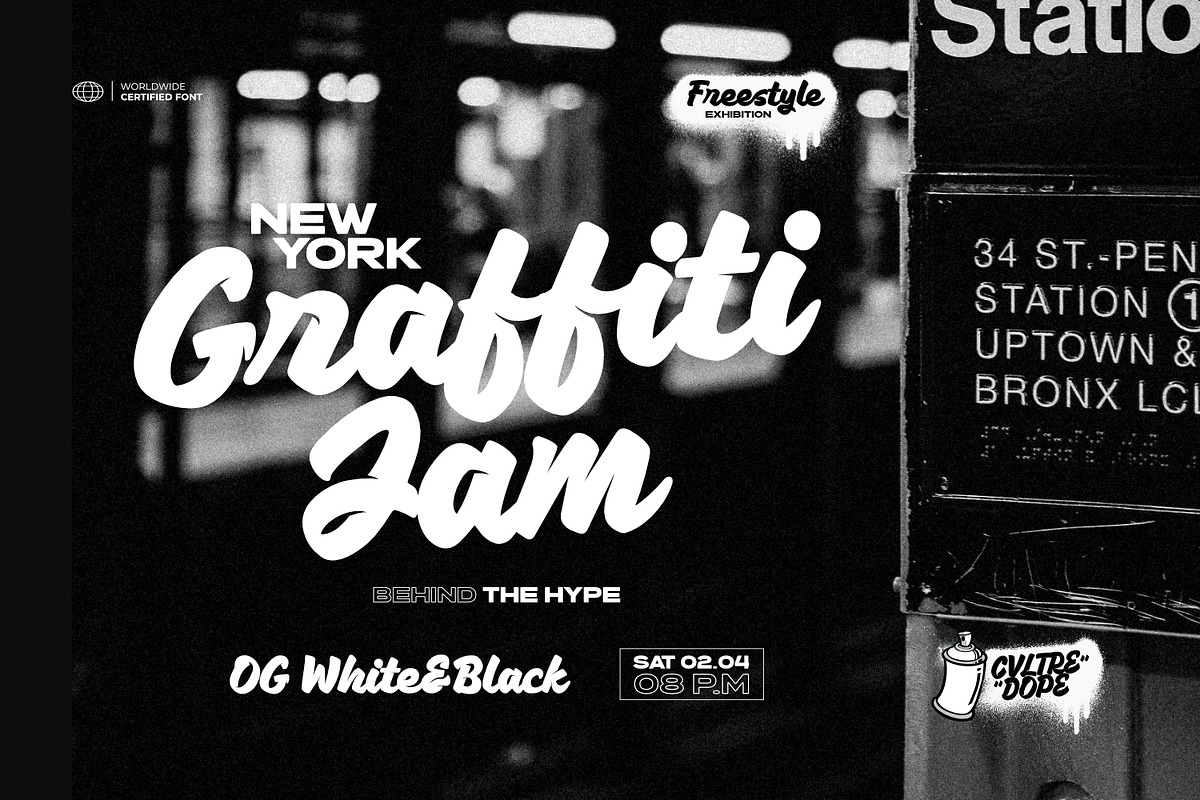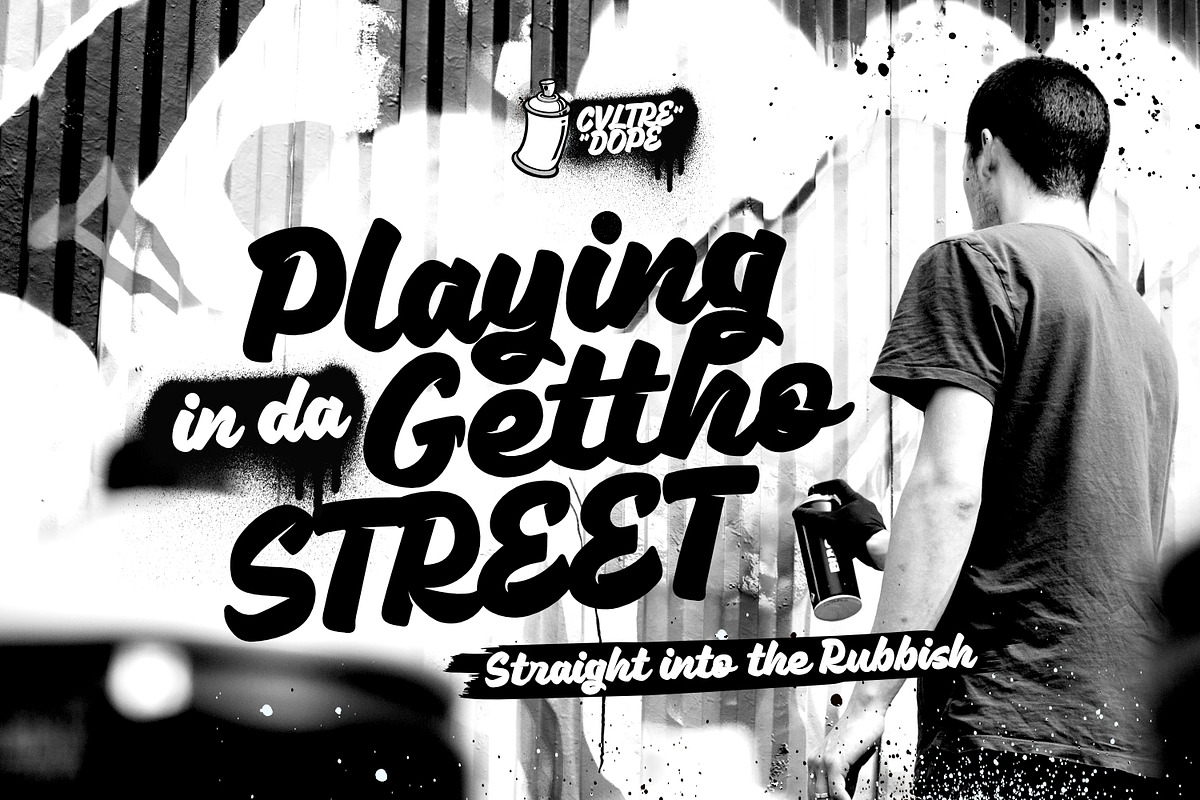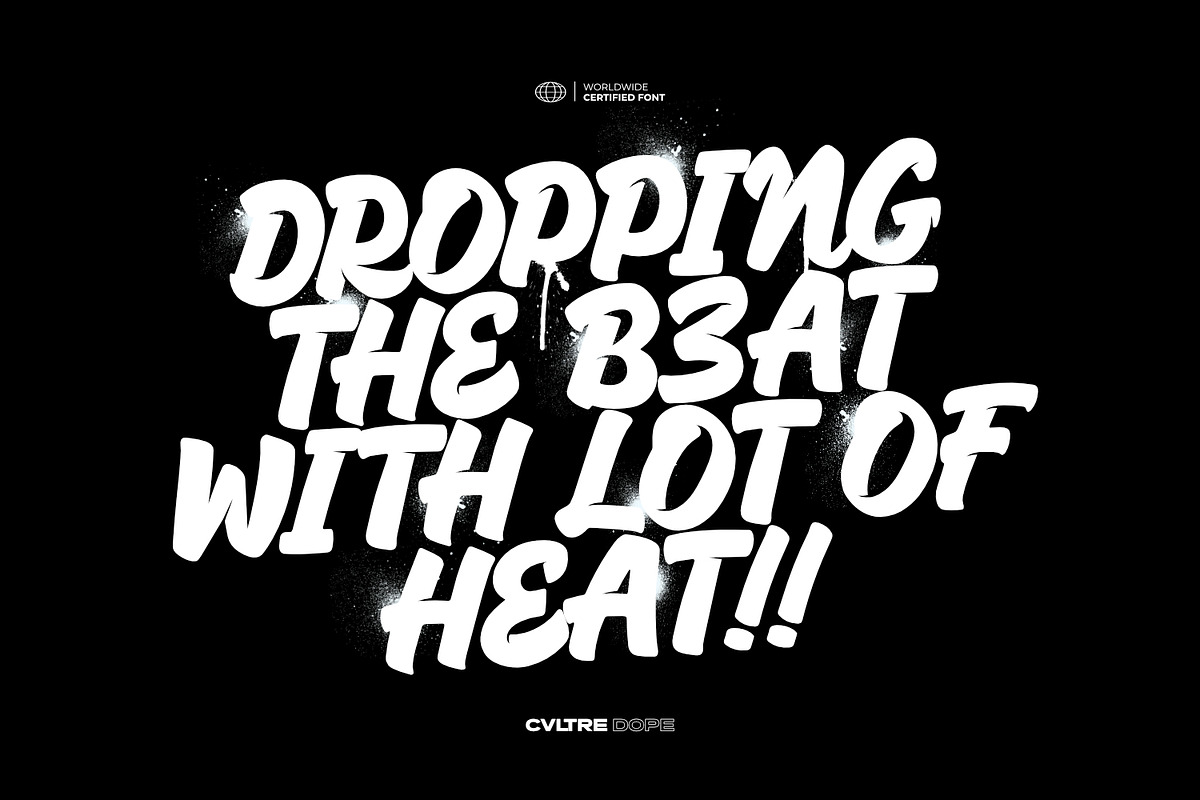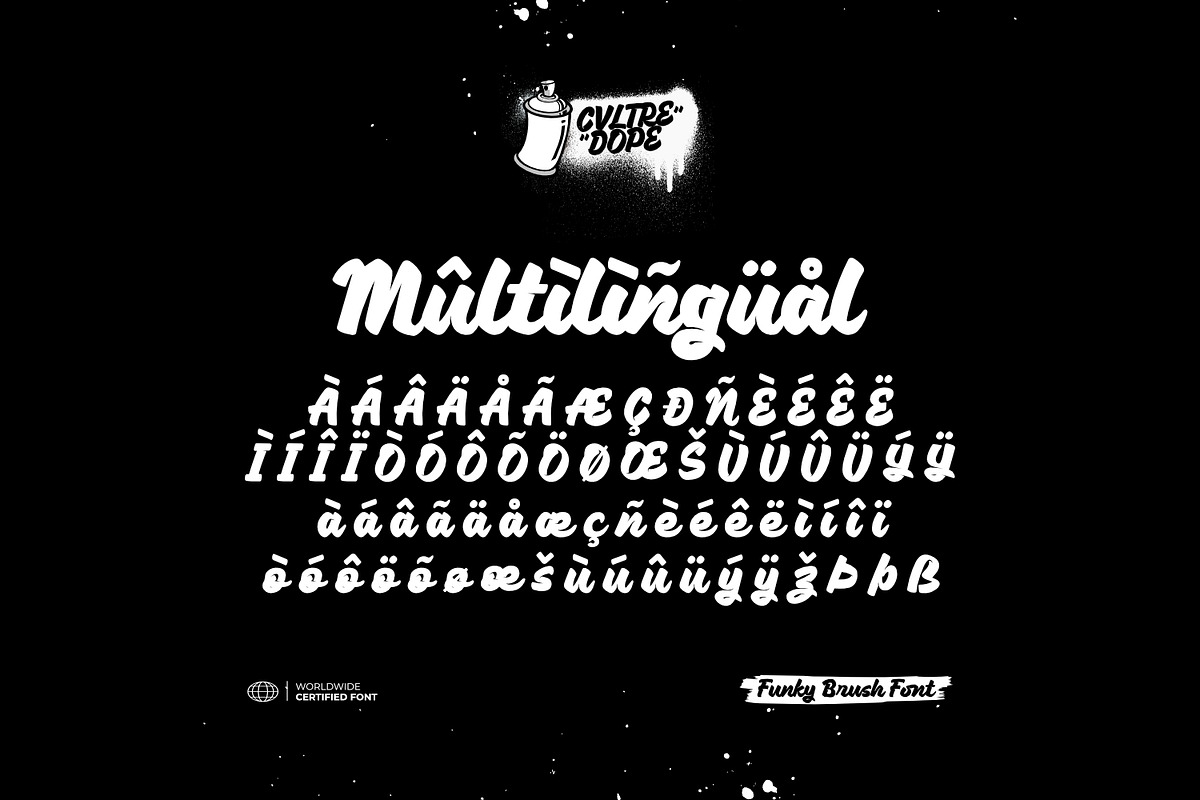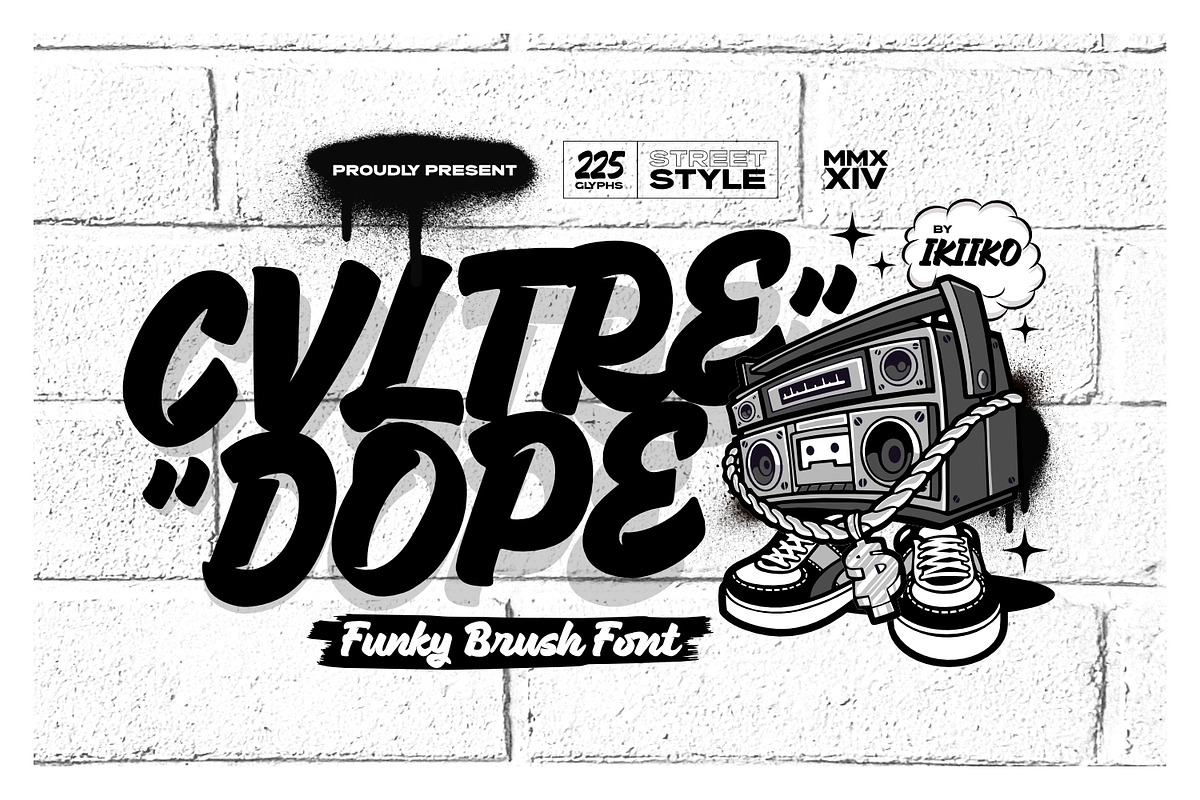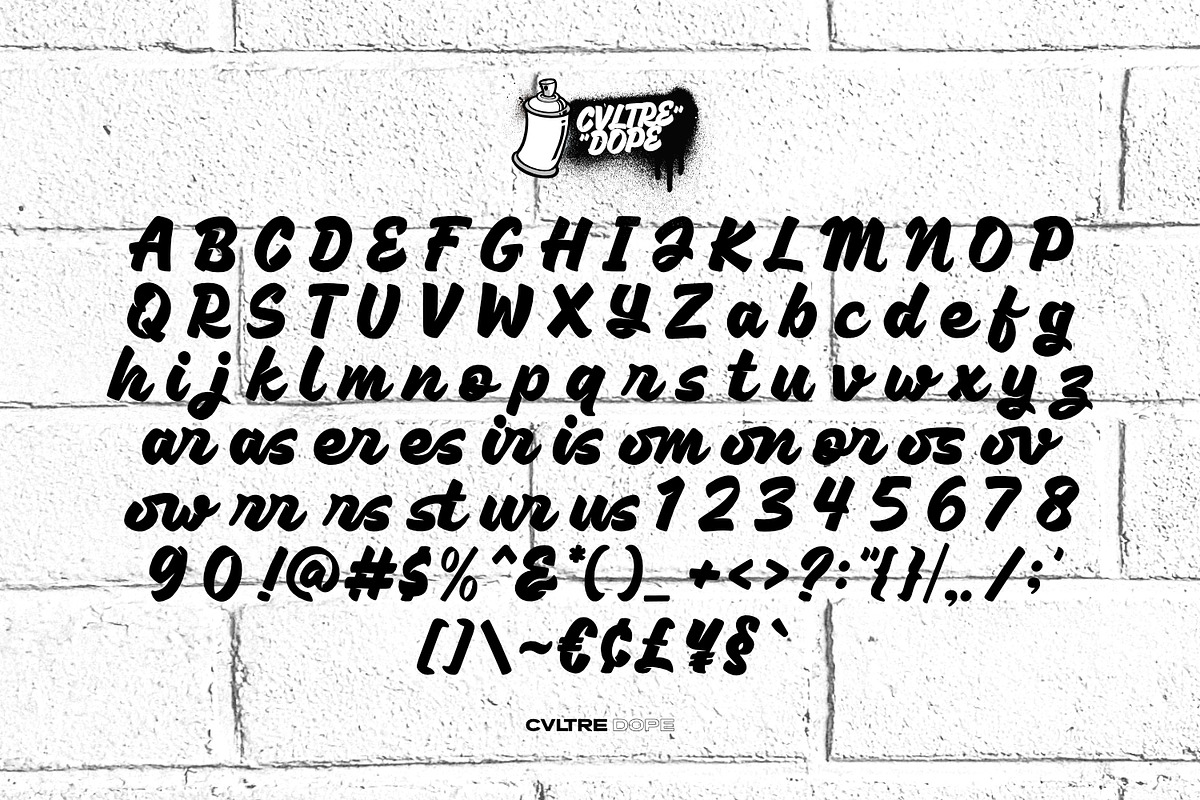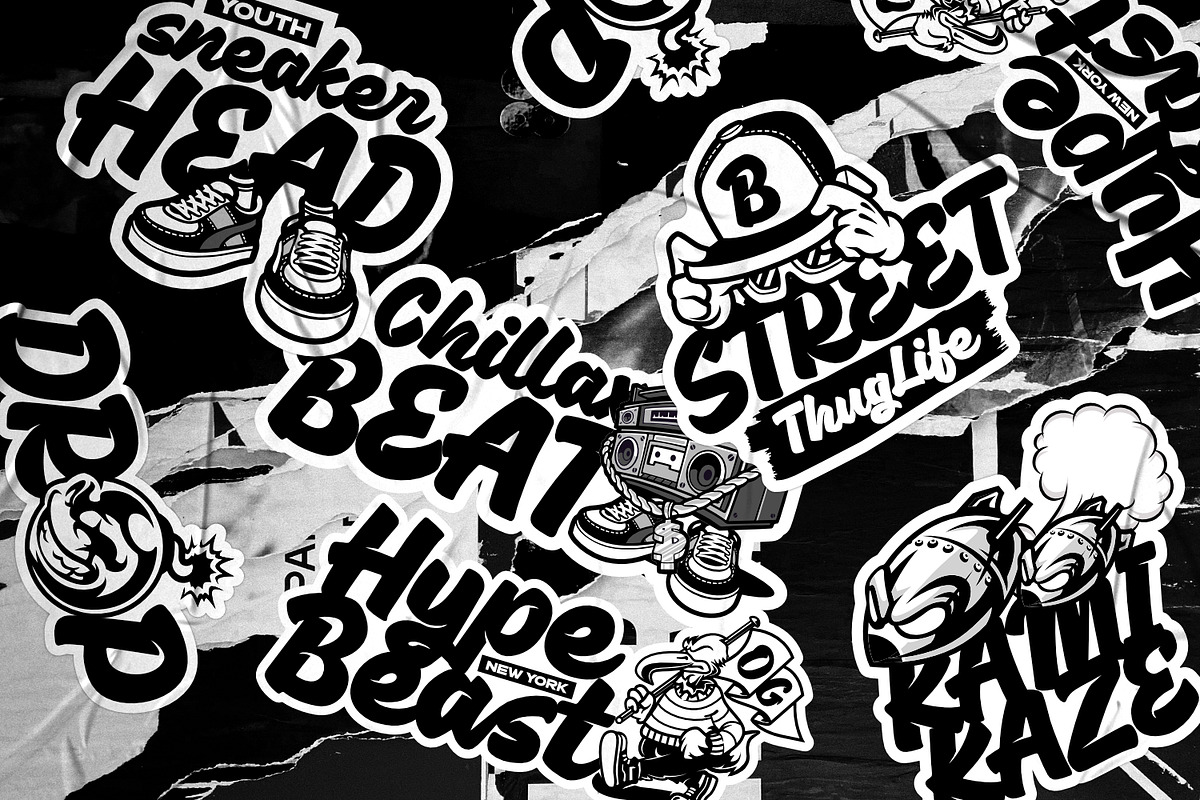
Cvltre Dope - Funky Brush Font
Proudly present Cvltre Dope - Funky Brush Font, created by ikiiko.
Where bold script meets funky in a stylish letters! This brush font is a rebellious celebration inspired by the vibrant pulse of street culture. Imagine a font that's as daring as your streetwear style – it's not just a font, it's a statement!
Cvltre Dope is the wild offspring of graffiti vibes and urban flare, giving your phrases a streetwise edge. This font screams attitude with every stroke, making it the ideal complement for any streetwear business looking to break the stereotype. Bold, funky, and ready to conquer the streets, the font that doesn't just speak; it shouts in style!